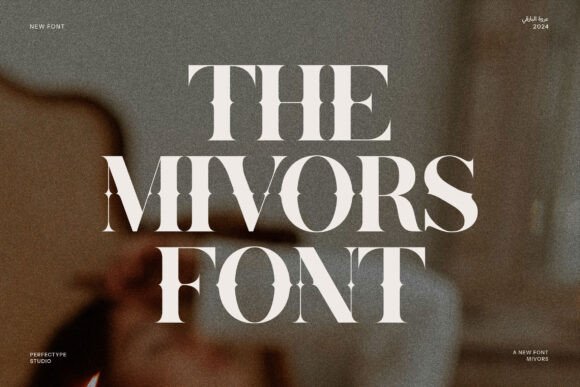
Mivors Font: Elevate Your Designs with Elegance and Sophistication
In the world of typography, fonts play a crucial role in conveying the tone and personality of a brand or design project. When it comes to creating a lasting impression, the right font can make all the difference. This is where Mivors Font comes into play – a beautifully designed typeface that effortlessly combines modern elegance with vintage sophistication.
Introducing Mivors Elegant Serif Font
Mivors Elegant Serif Font is a stunning addition to the world of typography. Its classic serifs and refined curves make it an ideal choice for projects that require a touch of style and distinction. Whether you’re creating a luxury brand or working on a creative design, Mivors offers the perfect balance of beauty and functionality.
Key Features of Mivors Font
- Classic Serifs: Mivors Font features traditional serifs that add a touch of sophistication and elegance to any design project.
- Refined Curves: The font’s curves are carefully crafted to create a sense of fluidity and harmony, making it perfect for designs that require a touch of modernity.
- Versatility: Mivors is a versatile font that can be used for a wide range of applications, from branding and logos to website design and advertising.
- Readability: The font’s stylish yet highly readable letterforms make it perfect for both headline and body copy usage.
Ideal Applications for Mivors Font
Mivors Elegant Serif Font is perfectly suited for a variety of applications, including:
- Branding: Create a lasting impression with Mivors Font, ideal for luxury brands and high-end marketing materials.
- Logos: Make your logo stand out with Mivors Font, perfect for boutiques, restaurants, and product packaging.
- Website Design: Elevate your website’s design with Mivors Font, suitable for fashion, beauty, food, and lifestyle industries.
- Magazines and Advertising: Use Mivors Font to create stunning magazine layouts and advertisements that capture attention.
Industries That Benefit from Mivors Font
Mivors Elegant Serif Font is an excellent choice for industries where first impressions matter and visual appeal is paramount. Some of these industries include:
- Fashion: Add a touch of elegance and sophistication to your fashion brand with Mivors Font.
- Beauty: Create a luxurious and high-end feel for your beauty brand with Mivors Font.
- Food: Make your food brand stand out with Mivors Font, perfect for restaurants, cafes, and food packaging.
- Lifestyle: Elevate your lifestyle brand with Mivors Font, suitable for designs that require a touch of sophistication and elegance.
Why Choose Mivors Font?
With so many fonts available, why choose Mivors Font? Here are just a few reasons:
- Unique Aesthetic: Mivors Font offers a unique aesthetic that sets it apart from other fonts.
- Highly Readable: The font’s stylish yet highly readable letterforms make it perfect for both headline and body copy usage.
- Versatile: Mivors Font can be used for a wide range of applications, making it a valuable addition to any designer’s toolkit.
Tips for Using Mivors Font
To get the most out of Mivors Font, here are a few tips:
- Use it for Headlines: Mivors Font is perfect for headlines and titles, where its elegant and sophisticated feel can shine.
- Pair it with Other Fonts: Experiment with pairing Mivors Font with other fonts to create a unique and visually appealing design.
- Adjust the Size: Adjust the size of Mivors Font to create visual hierarchy and emphasize important information.
Mivors Elegant Serif Font is a beautifully designed typeface that offers the perfect balance of elegance and sophistication. With its classic serifs, refined curves, and versatile nature, it’s an ideal choice for a wide range of design projects. Whether you’re creating a luxury brand or working on a creative design, Mivors Font is sure to elevate your designs to the next level.
- What is Mivors Font? Mivors Font is a beautifully designed elegant serif font that combines modern elegance with vintage sophistication.
- What is Mivors Font used for? Mivors Font can be used for a wide range of applications, including branding, logos, website design, magazines, and advertising.
- Is Mivors Font readable? Yes, Mivors Font is highly readable, making it perfect for both headline and body copy usage.